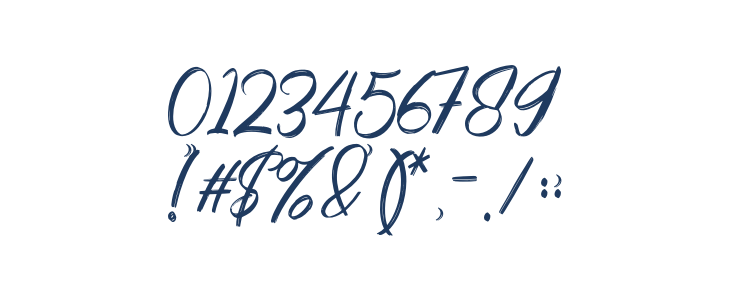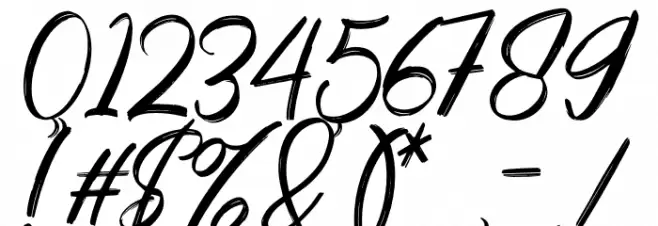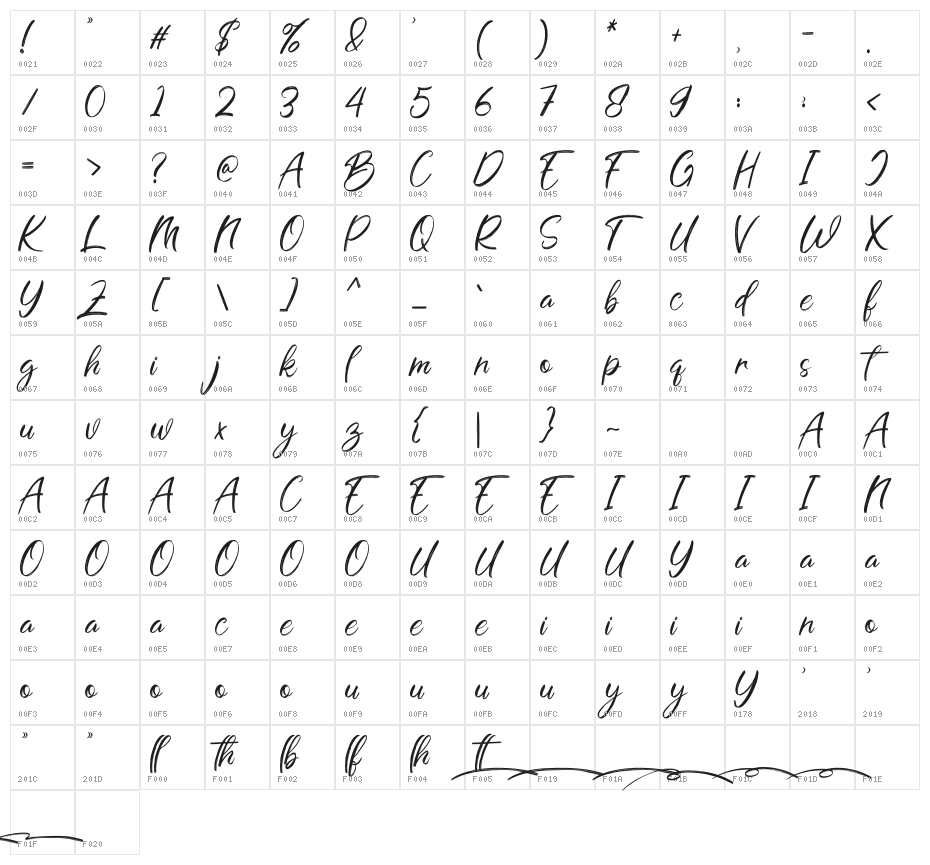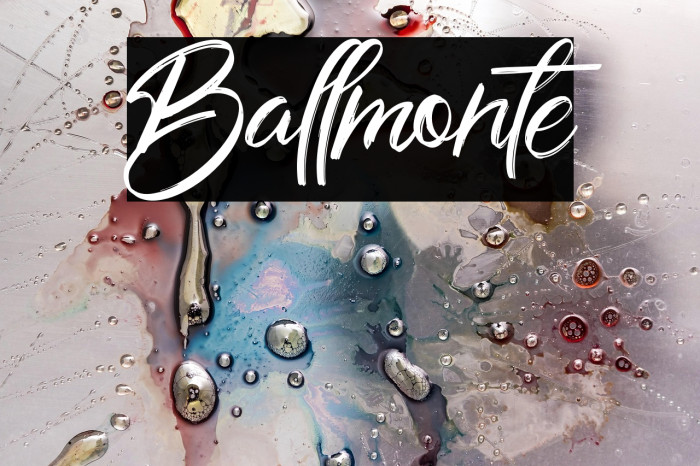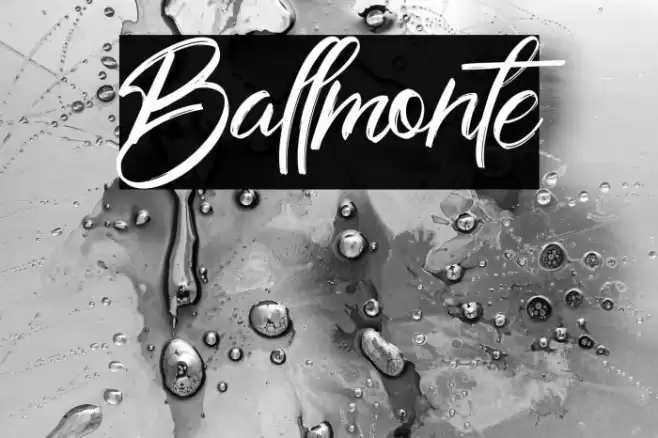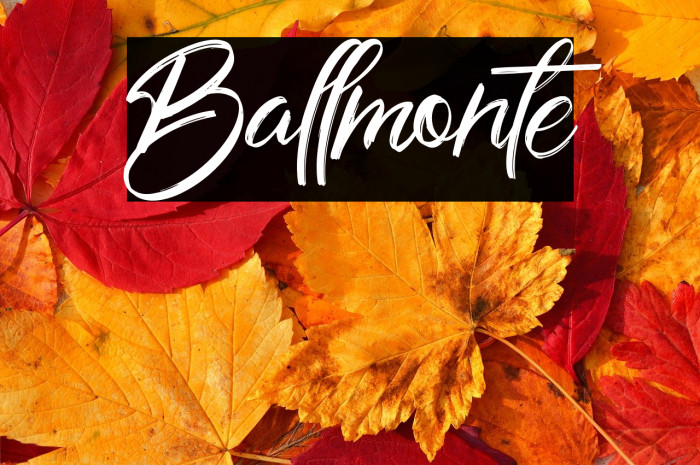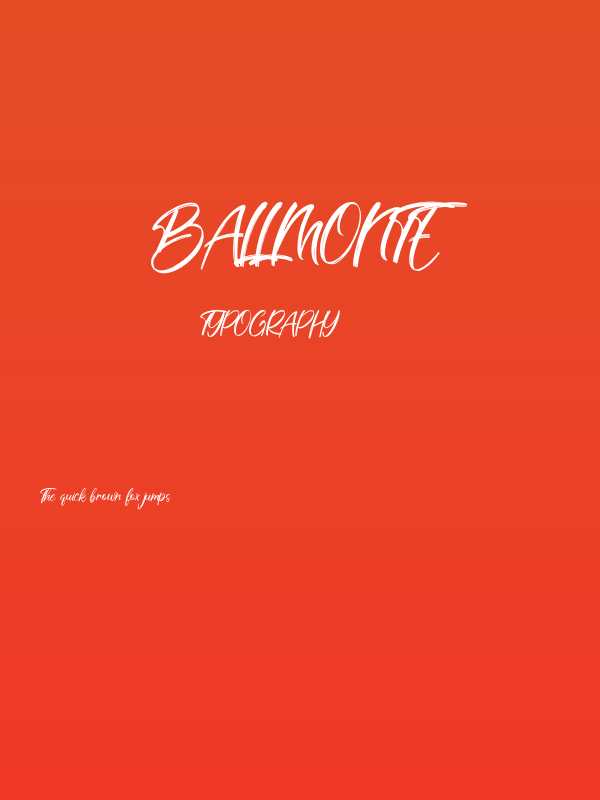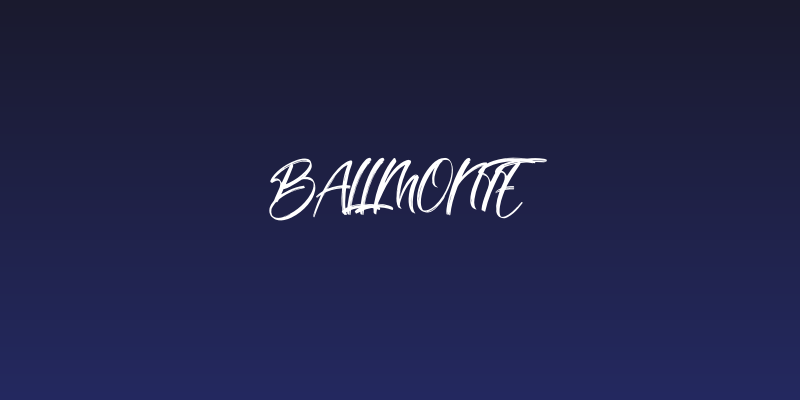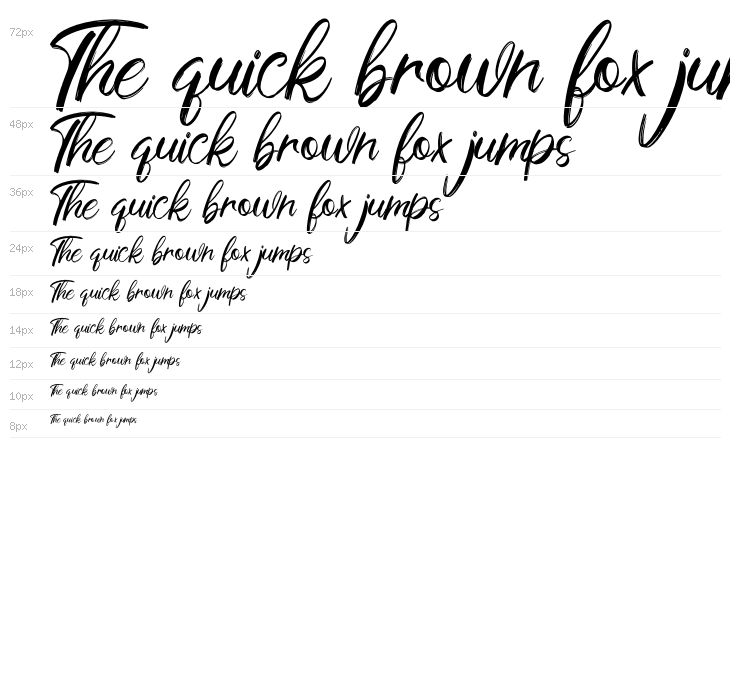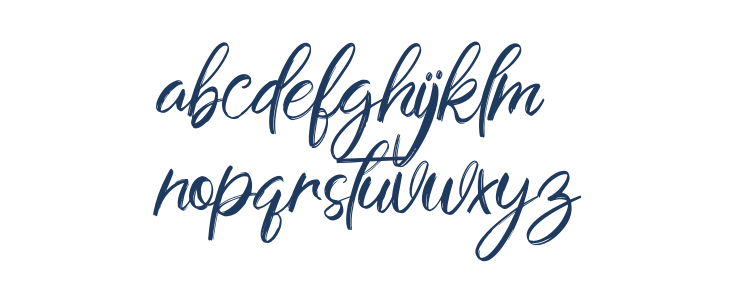
Ballmonte Font
Ballmonte Description
This font exudes a dynamic and energetic vibe with its bold, sweeping strokes and fluid, cursive style. The letters are crafted with a sense of motion, creating a lively and expressive appearance. The uppercase characters are tall and slightly condensed, while the lowercase letters maintain a consistent flow, enhancing readability. Numbers and special characters are designed to match the overall aesthetic, contributing to a cohesive look. The strokes vary in thickness, adding a touch of elegance and sophistication. This font is perfect for projects that require a personal and artistic touch.